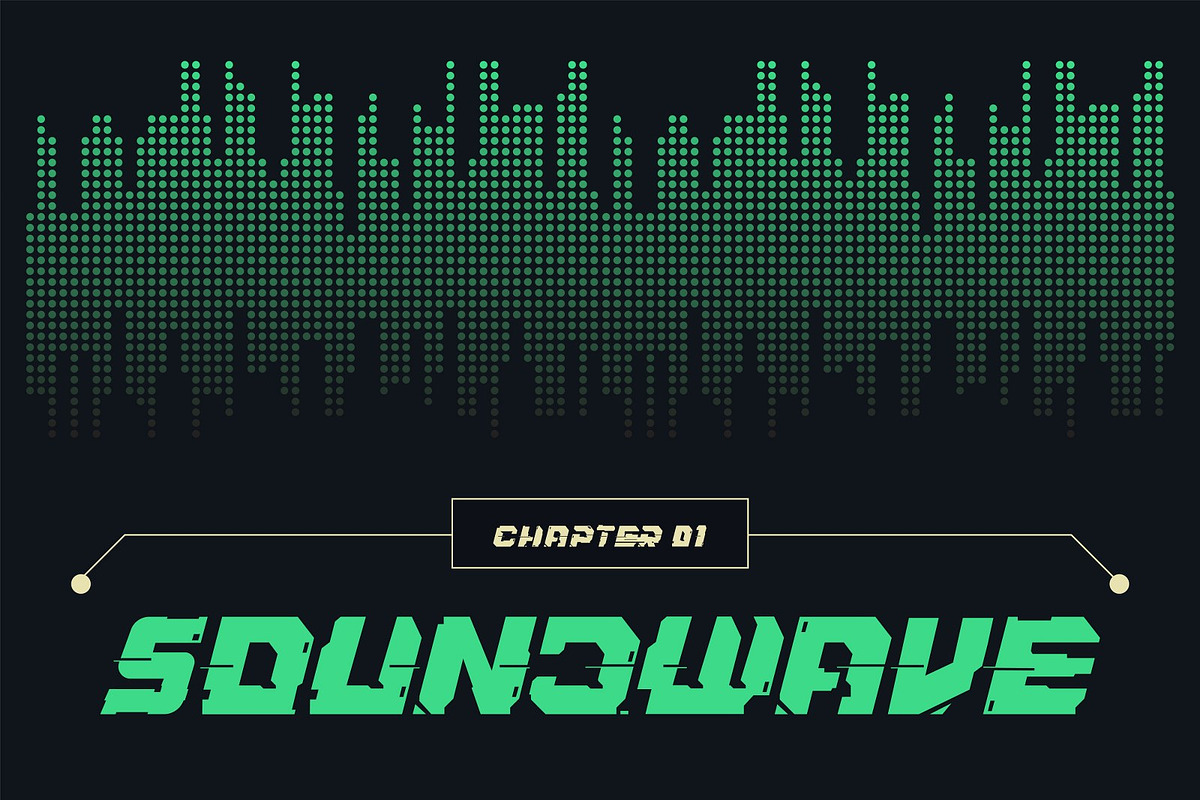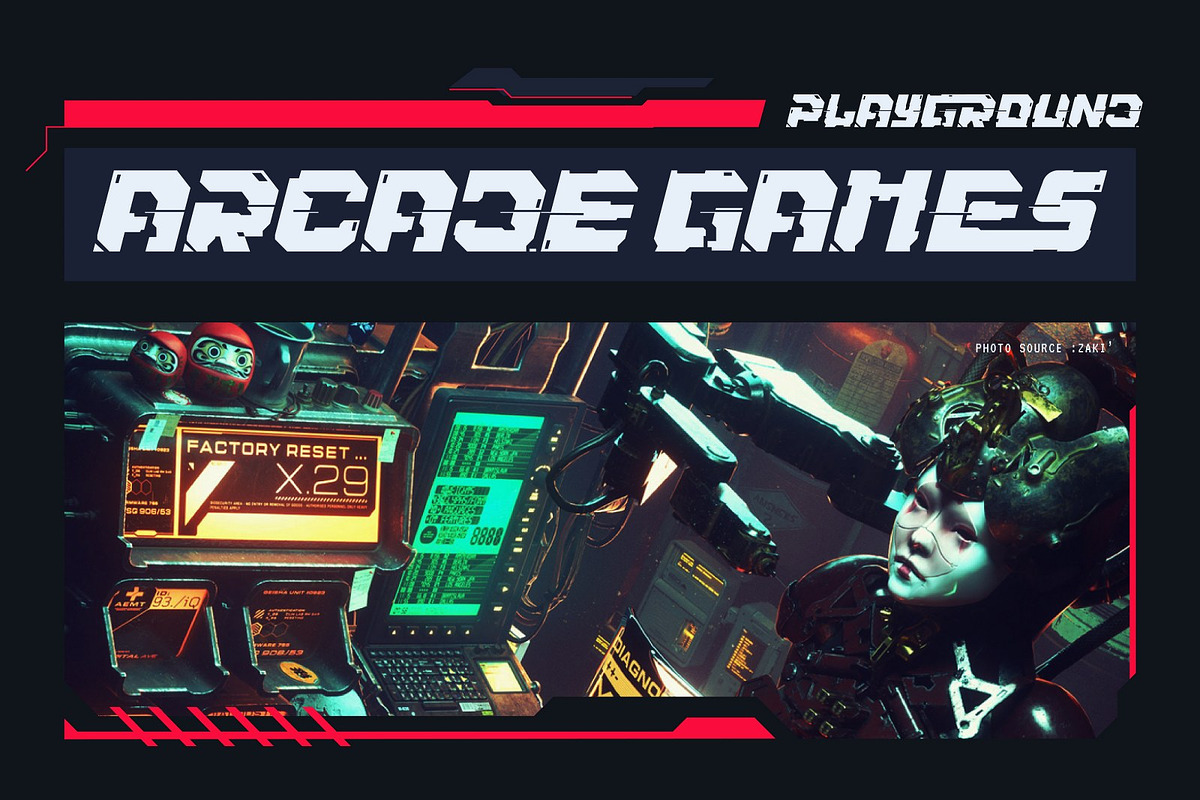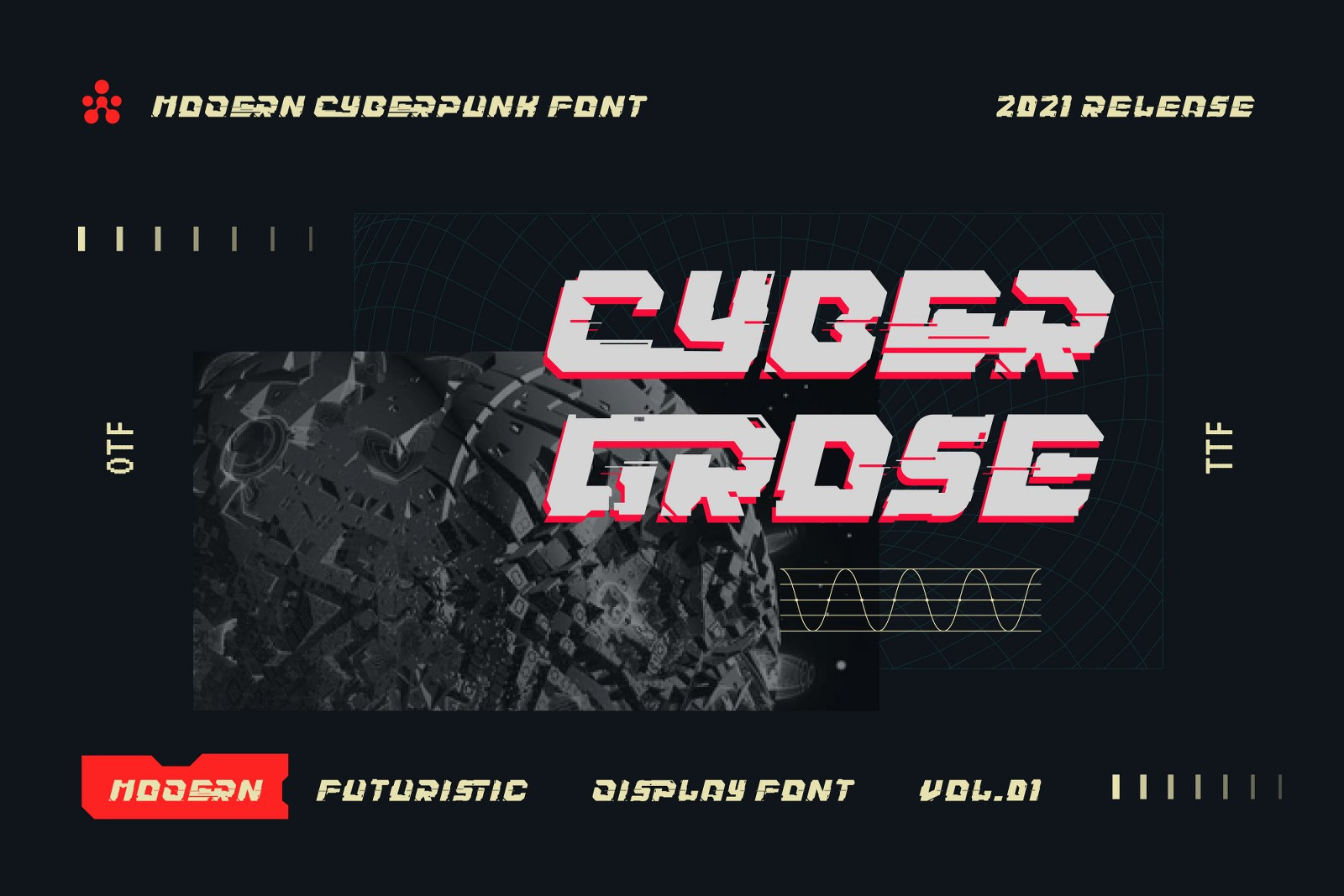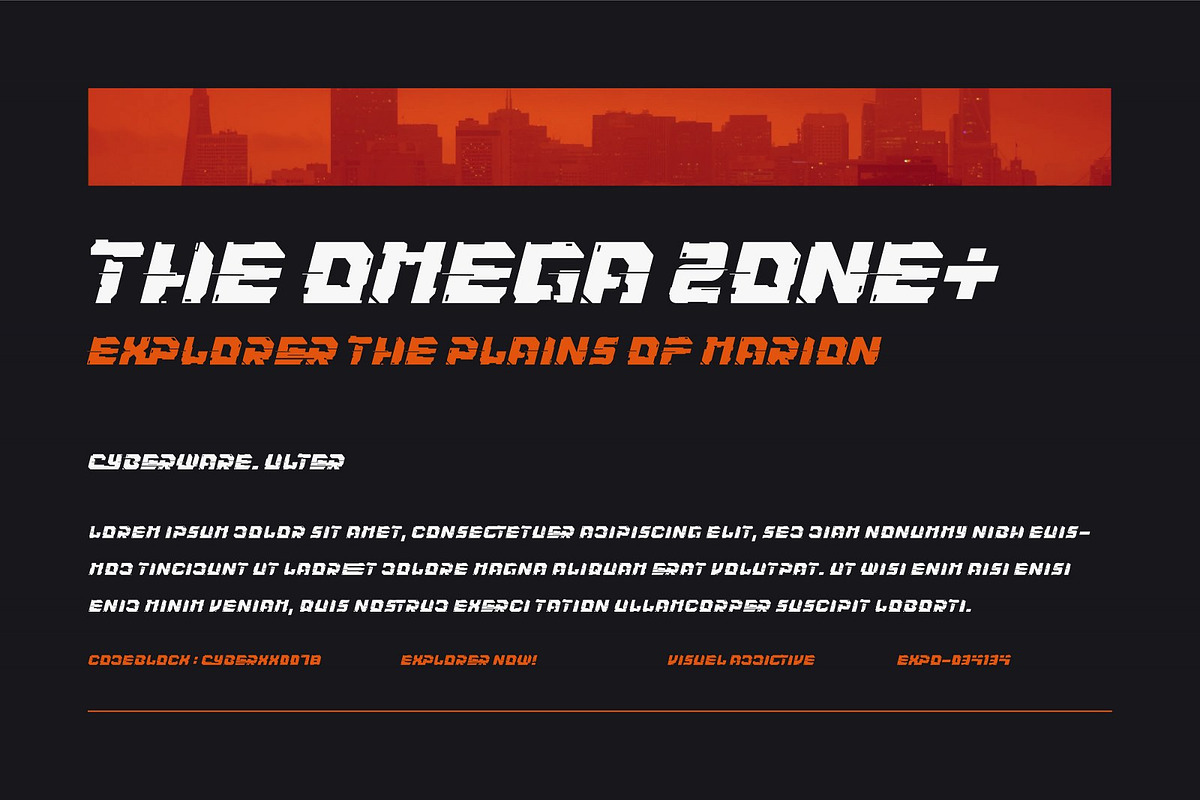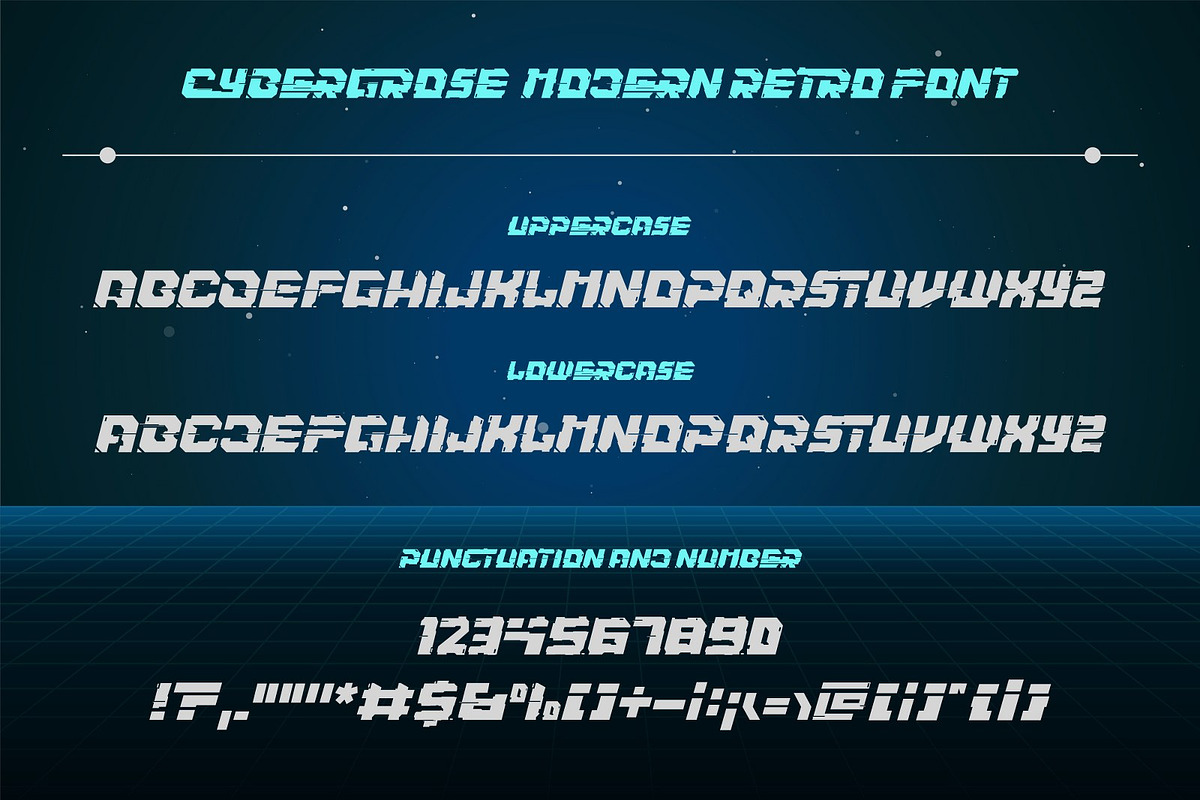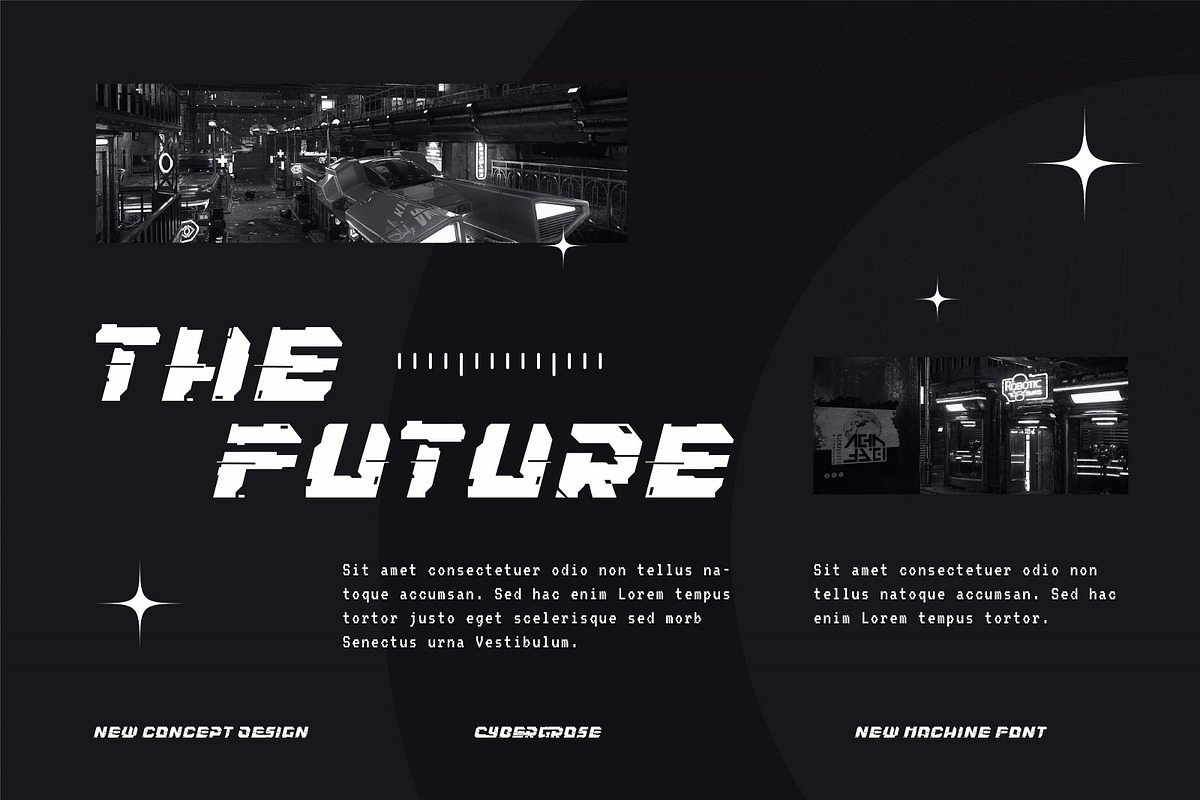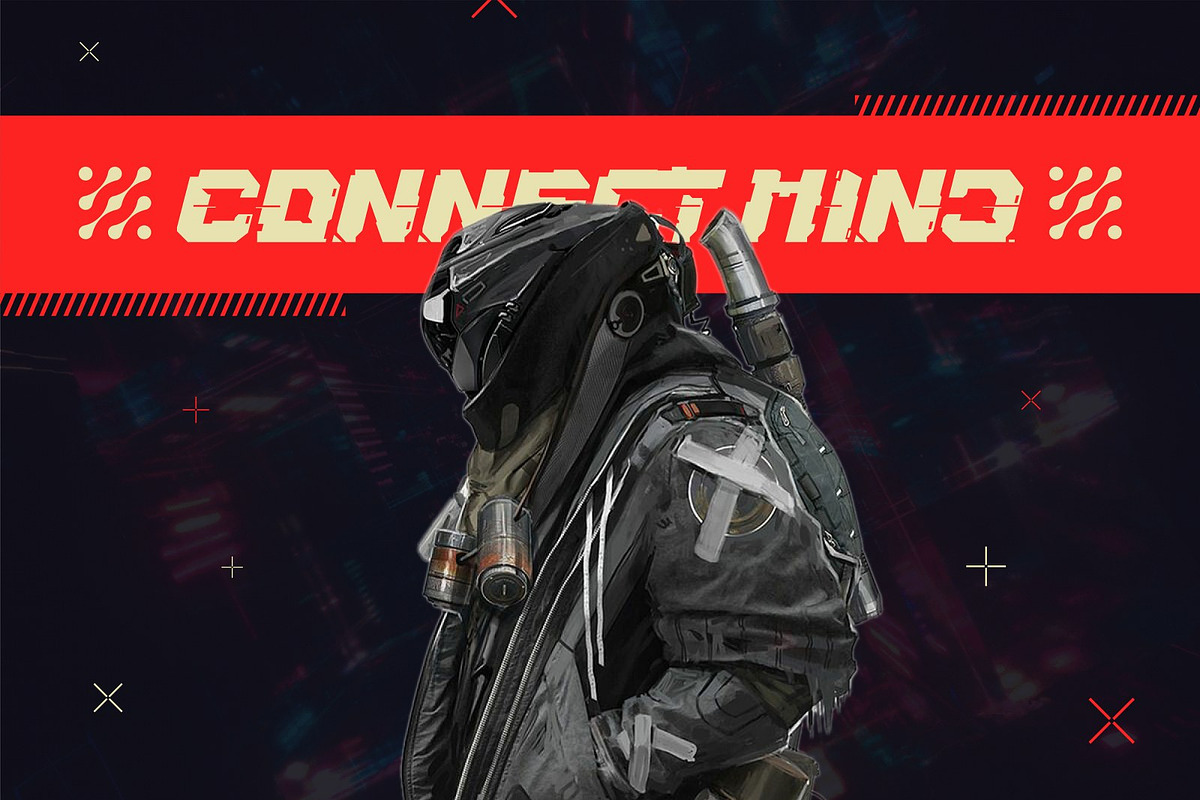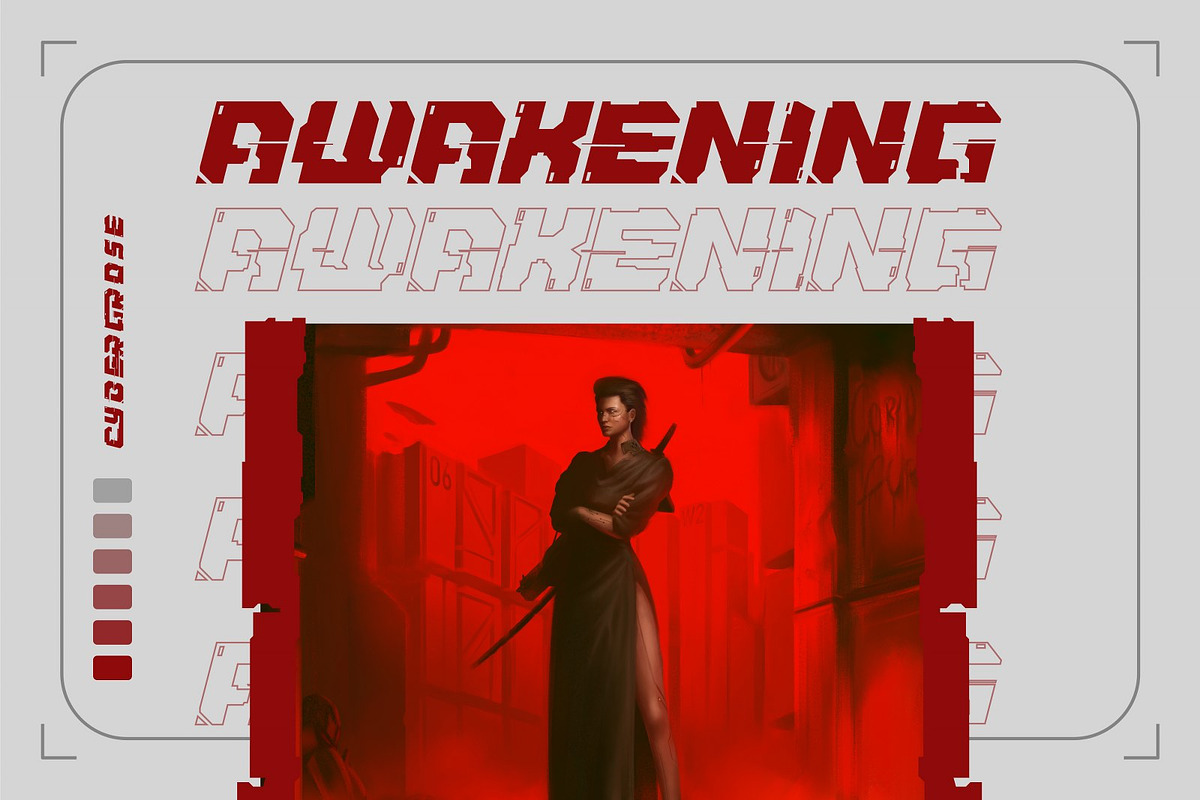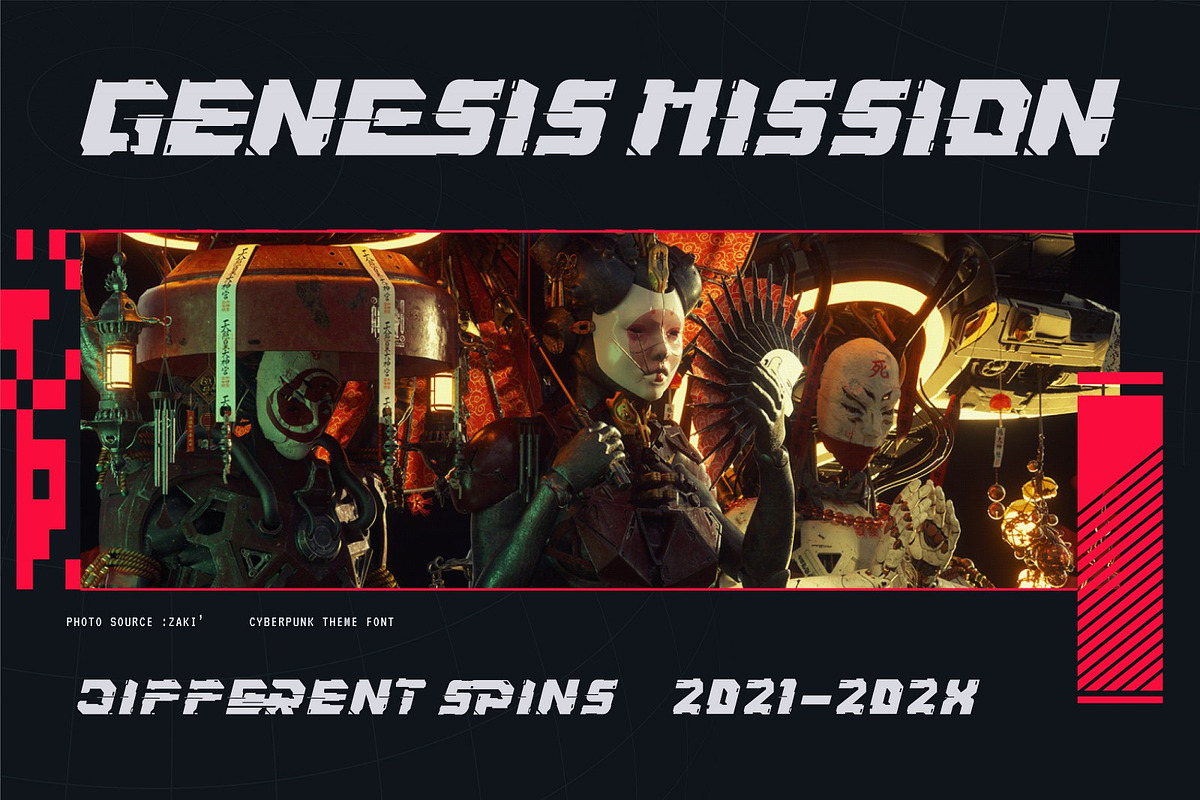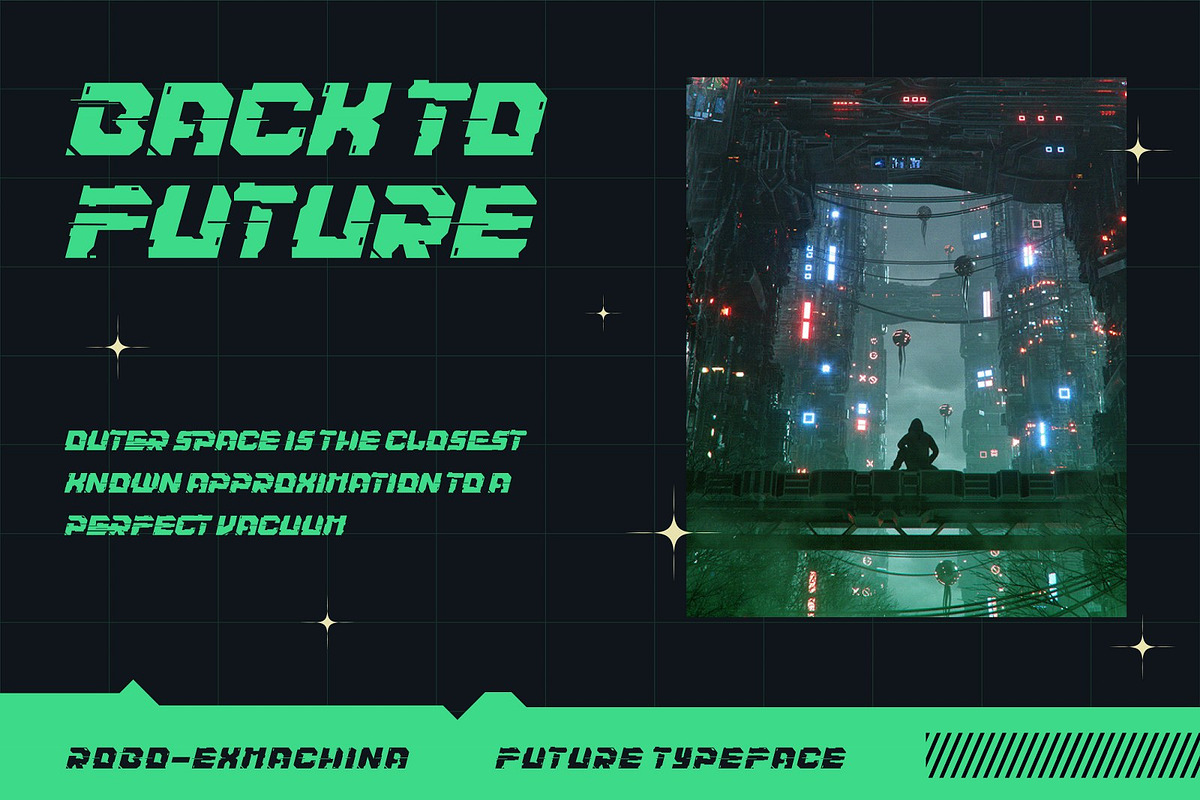
Cybergrose - Cyberpunk Display Font
Cybergrose is a cool combination of powerful, sporty, automotive, elegant, and futuristic. One of kind techno cyber font that is versatile to apply in various design styles. It's built to be big, sleek, and formidable—just like the mechanically engineered beings that inspired it.